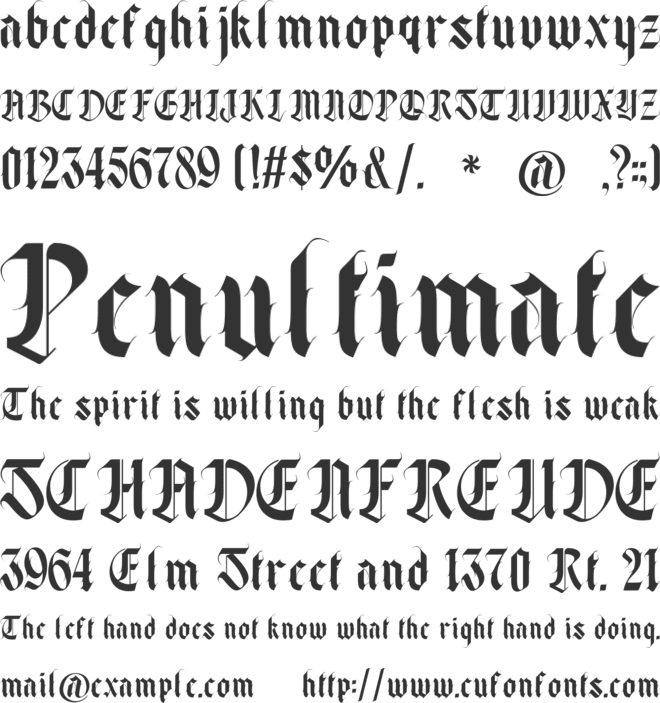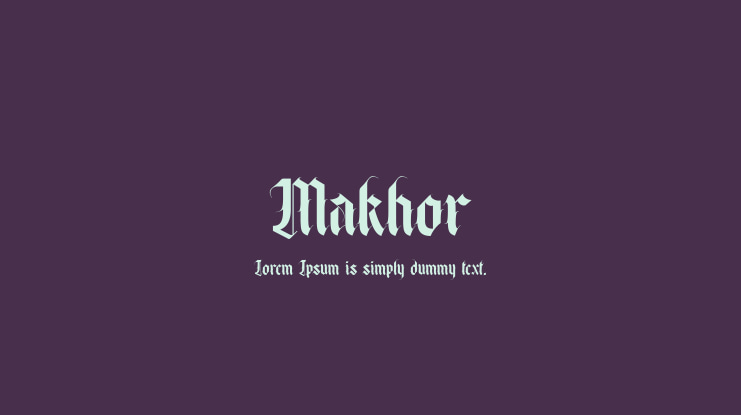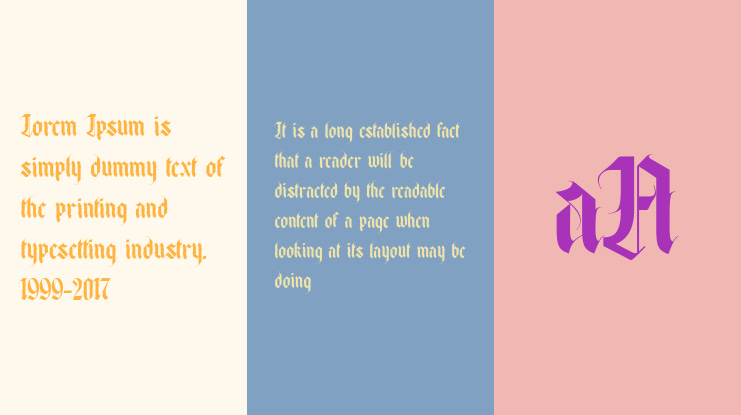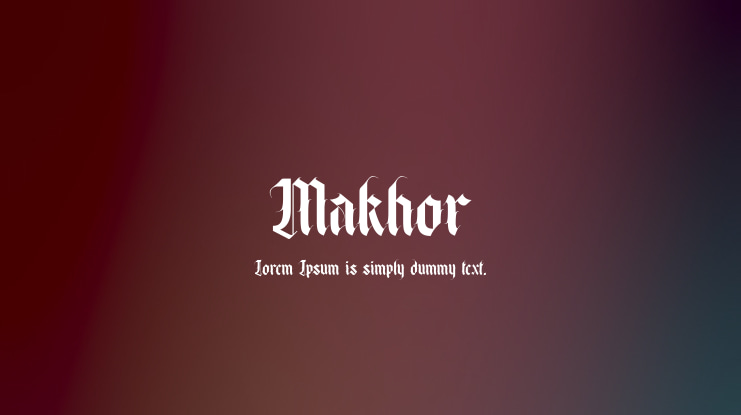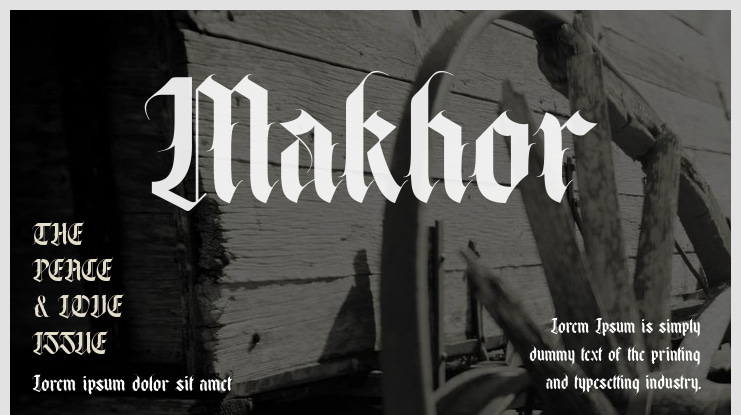
Makhor Font
I Kadek Paniawan
Introducing Makhor Metal Blackletter Typeface: a bold and authoritative font designed to make a statement. With its intricate design and historical roots, Makhor Metal brings a touch of vintage charm to any project. Crafted with meticulous attention to detail, this typeface is perfect for projects that require a distinctive and powerful aesthetic.